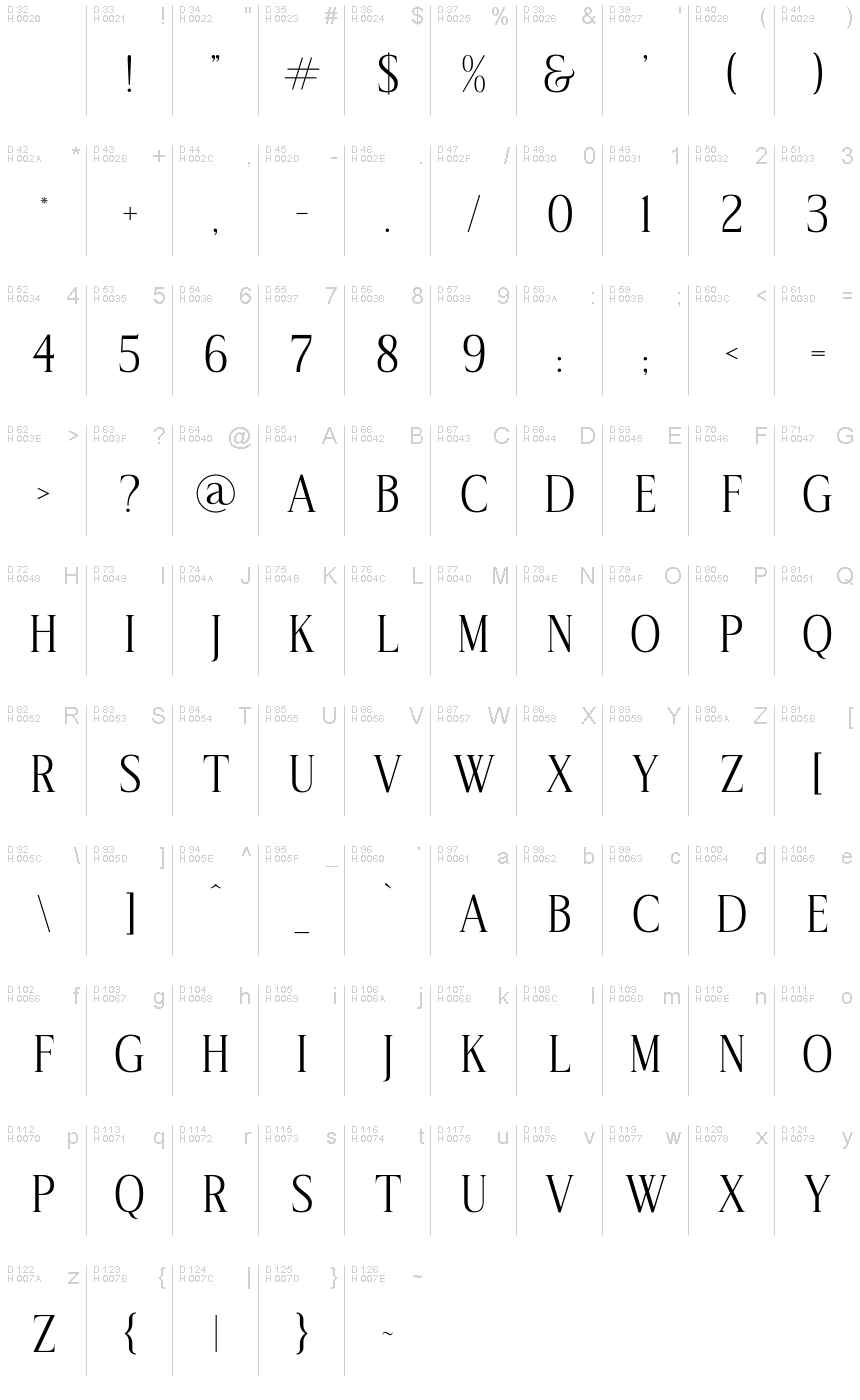
OWERSTINN
Owerstinn by Storytype Studio is a captivating serif font that exudes sophistication and timeless elegance. Its condensed width lends a refined, streamlined aesthetic, while the intricate serifs and delicate curves create a harmonious balance between tradition and modernity. This font effortlessly evokes a sense of refined sophistication, making it a compelling choice for a wide range of design applications.
Owerstinn's versatility shines through its ability to elevate various design elements, from editorial layouts and book covers to high-end branding and advertising collateral. Its condensed structure allows for seamless integration into compact spaces, while its classic serif style lends a touch of timeless charm to any project. Whether you're crafting a luxurious editorial piece or curating a visually striking brand identity, Owerstinn by Storytype Studio is a font that will captivate and inspire.